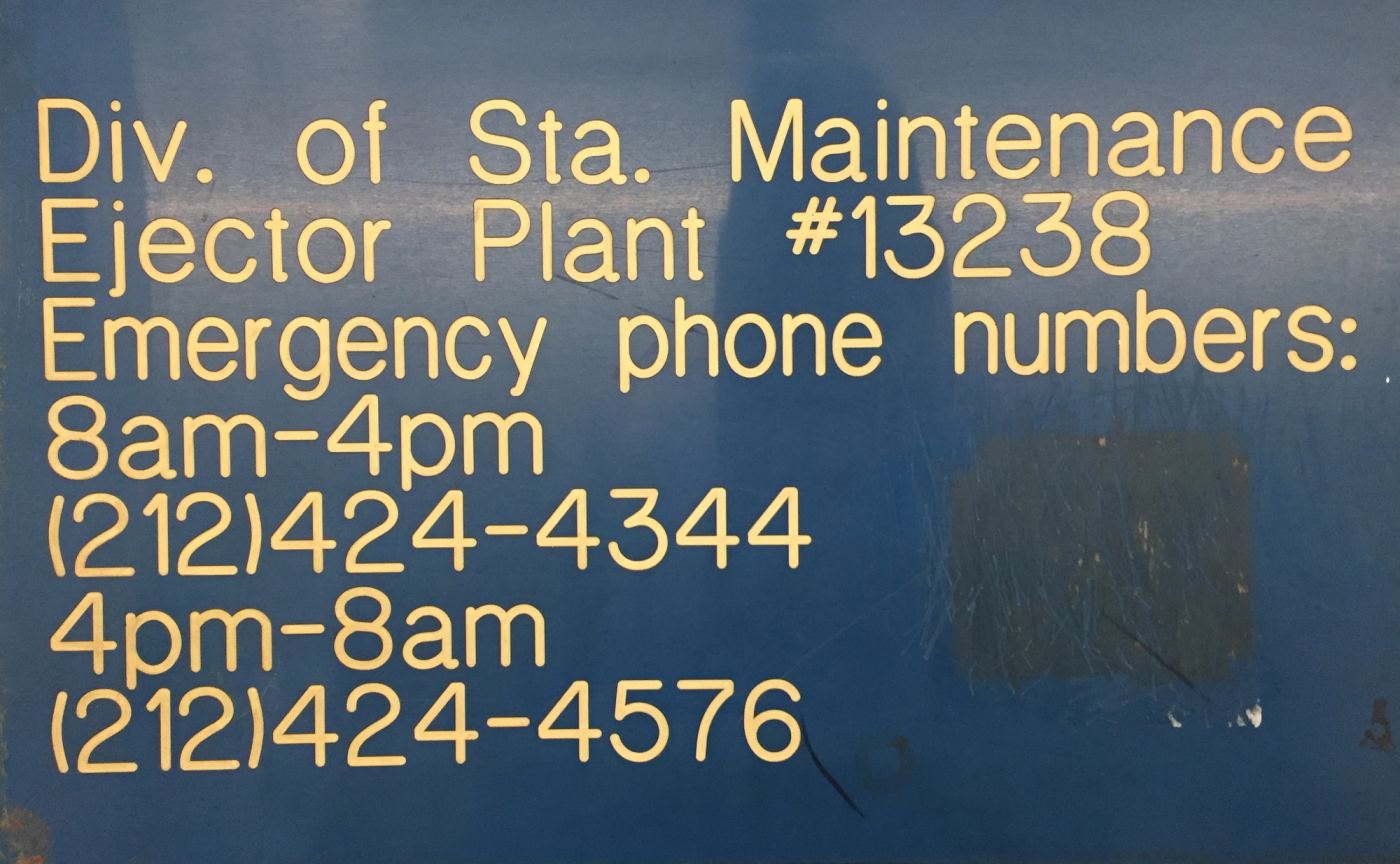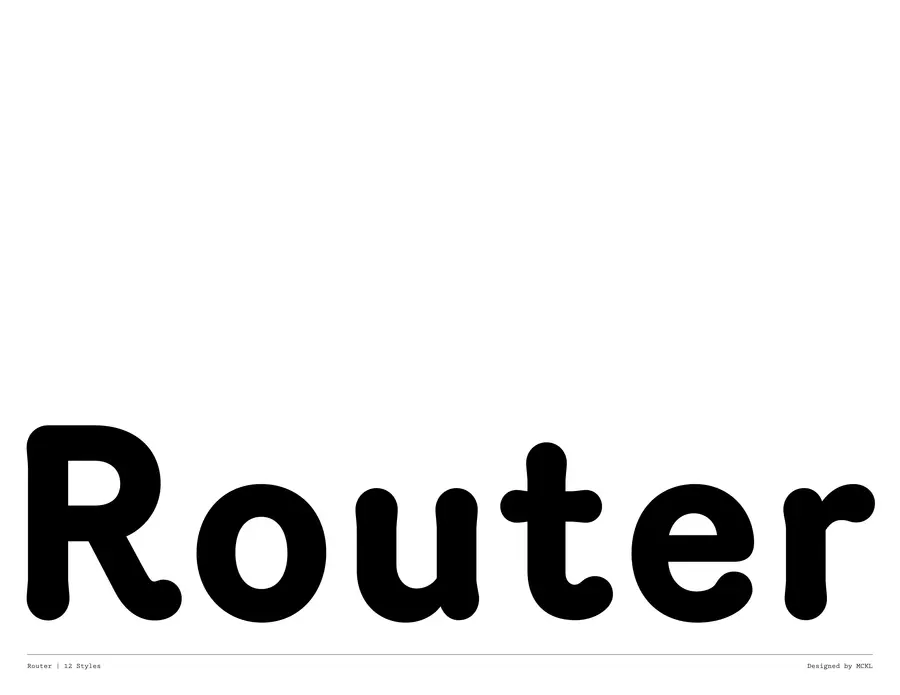
Router
- 12 styles 6 weights Roman and Italic
- Designed by Jeremy Mickel
- Published in 2008
Router is inspired by the movement of a rotating engraver carving into plastic. When the router starts or stops, there can be a slight swelling of the stroke — a feature I exaggerated and made the central feature of the typeface.
Selected for the Graphic Design: Now in Production show at the Walker Art Center and Cooper-Hewitt National Design Museum.
OpenType Features
Small Capssmcp
Rotation
abcdefghijklmnopqrstuvwxyz
Interrobangliga
What?!
Case-sensitive Punctuationcase
¡Hola!
¡¿()[]{}@®/|‖¦\·-–—
Tabular Numeralstnum
1234
0123456789
Schoolbook ass01
Calico
aáăâäàāąåã
Reverse Left Quotesss03
“OK”
‘ “